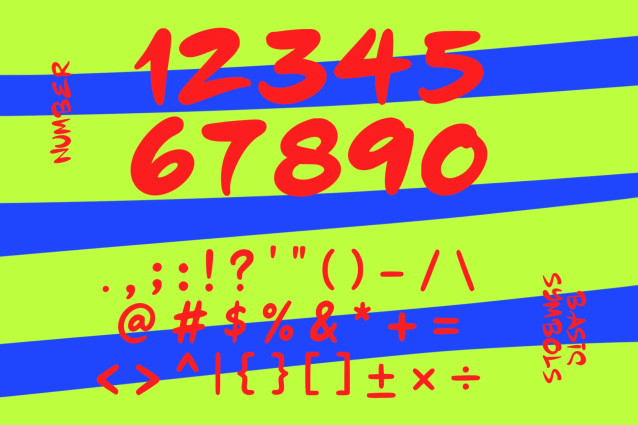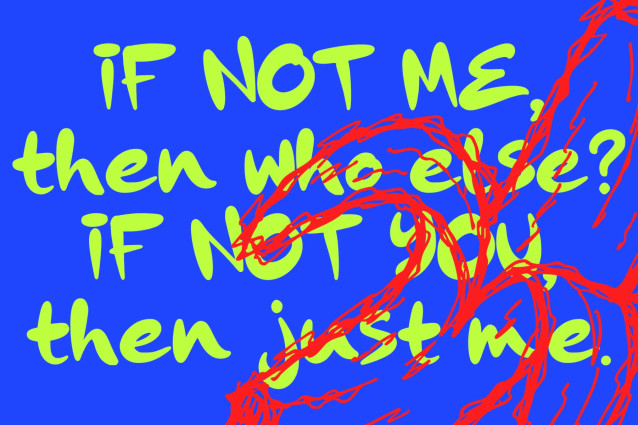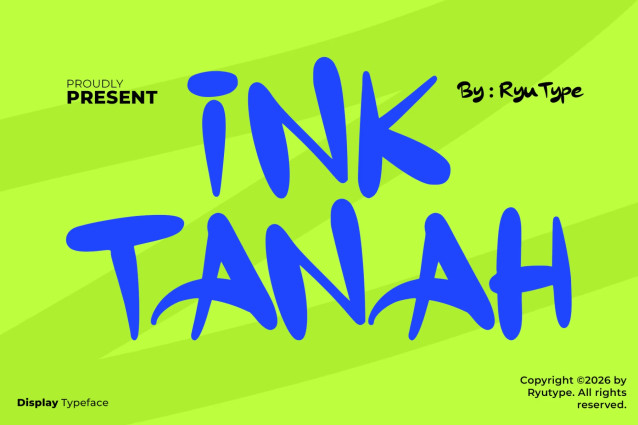
INKTANAH DISPLAY FONT
INKTANAH is a bold and energetic display type inspired by playful handwritten lettering and expressive marker strokes. It features chunky organic forms, fluid curves, uneven proportions, and lively rounded edges that create a fun and spontaneous personality — perfect for posters, branding, packaging, apparel, stickers, social media graphics, and bold creative projects.